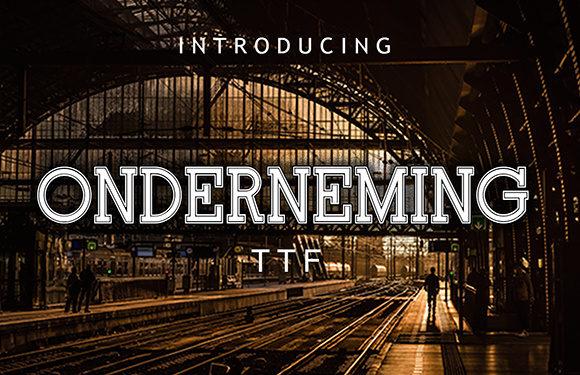
Onderneming Font
Behold Onderneming Font, a stunning display font that combines athletic vigor with an exquisite outlined style. Crafted by the visionary vladimirnikolic, Onderneming is not just a font; it's a gateway to unleashing your creativity. Whether you're designing posters that demand attention, banners that command respect, or t-shirts that speak volumes, Onderneming is your ultimate weapon.
With its robust structure and sharp edges, Onderneming exudes a sense of strength and power. Its outlined design creates a captivating visual effect, adding depth and dimension to your creations. The font's clean lines and well-defined curves ensure perfect legibility, even when used in smaller sizes.
Immerse yourself in a world of boundless possibilities with Onderneming. Create posters that ignite passion, banners that inspire action, and t-shirts that spark conversations. Let Onderneming's athletic spirit elevate your designs to new heights, leaving an unforgettable impact on your audience.
Don't settle for ordinary fonts that blend into the background. Choose Onderneming, a font that stands out, captivates, and commands attention. Unleash your inner artist and transform your designs into masterpieces with Onderneming, the font that fuels your imagination and propels your creativity to unimaginable heights.